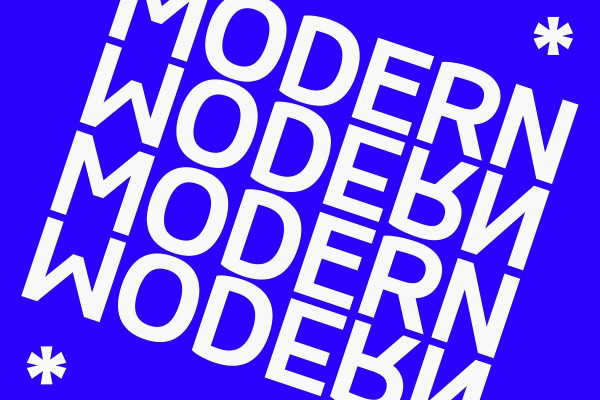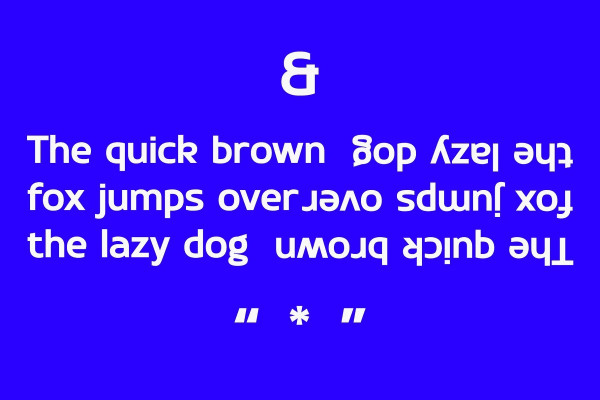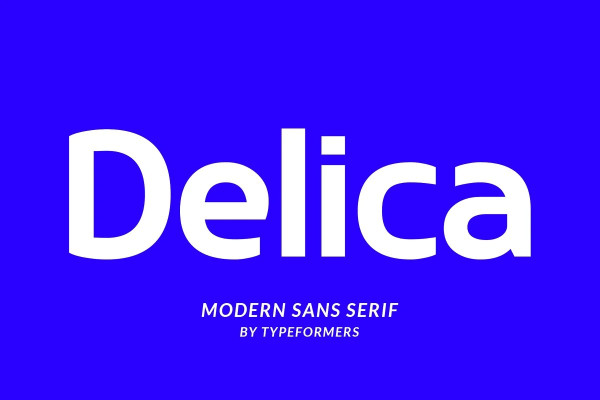
Delica Font
Delica Font – Modern Sans Serif. It is a modern and simple font, best used as a display for headings, logos, branding, magazines, product packaging and invitations.